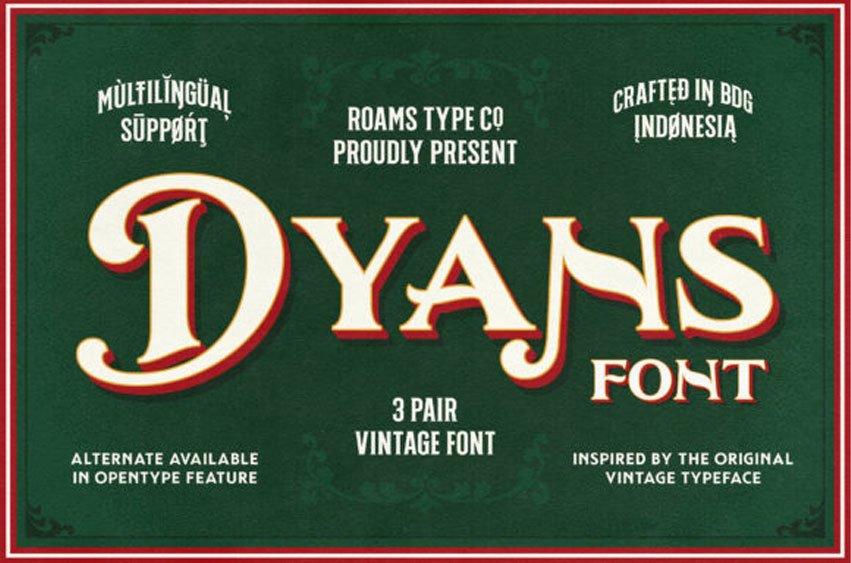
is a bold, thick lettered and vintage styled display font.
It will look incredibly distinct on any poster, label, apparel design, branding or idea., branding or idea.